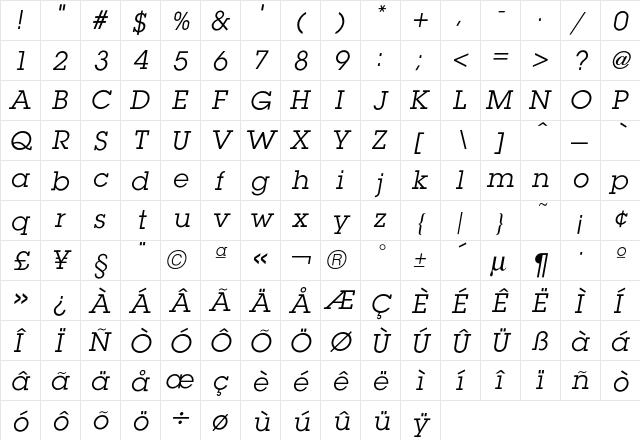
Lubalin BookOblique
Design Context for Lubalin Typeface
Lubalin offers clean, dependable letterforms without strong stylistic allegiance, making it a practical choice for designers who need flexibility. Its italic angle brings a sense of urgency and motion to the letterforms.
Pro Tip: Use Lubalin for emphasis, pull quotes, and subheadings where its slanted energy can add rhythm to the layout.